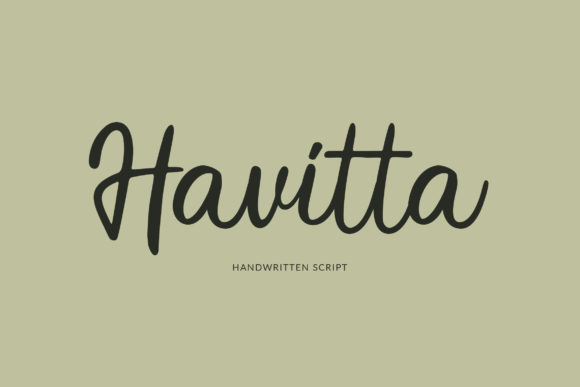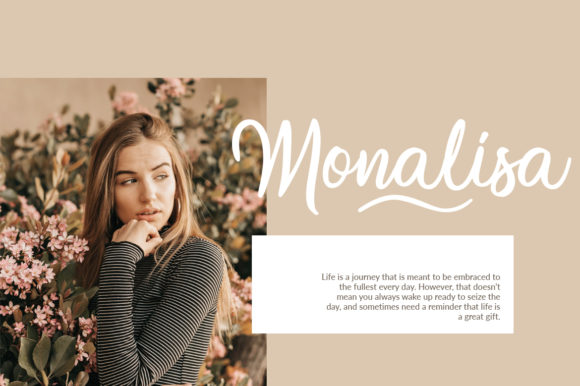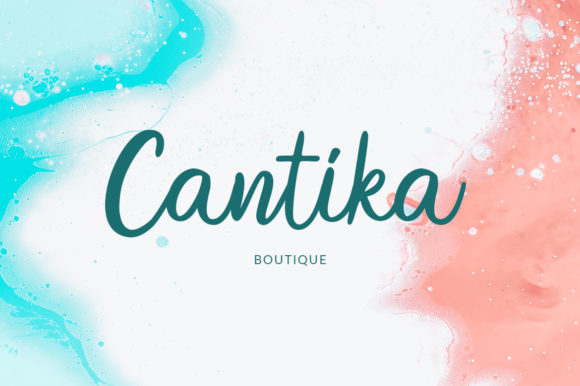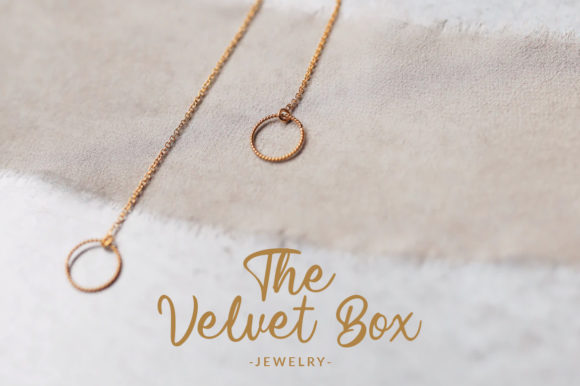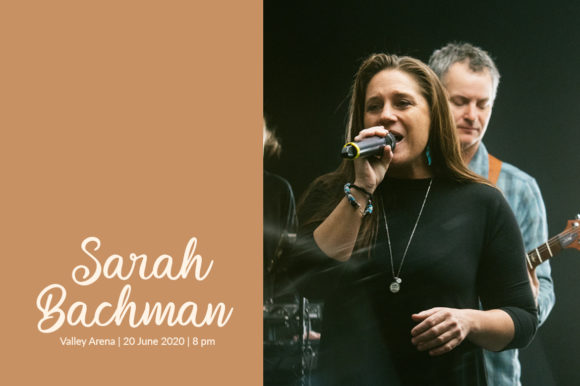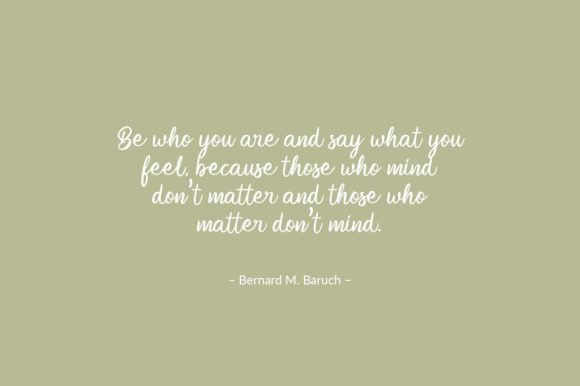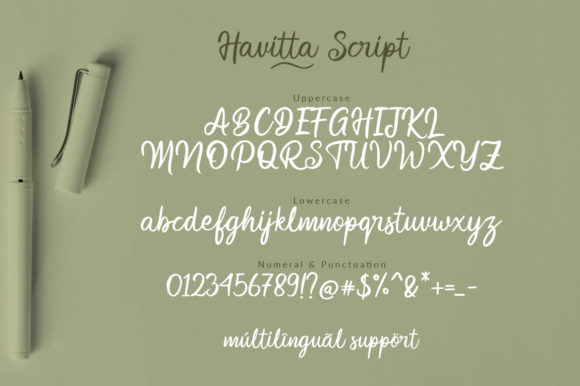
Havitta Font
About Havitta Font
Havitta is a sweet and classy handwritten font. Its well balanced arrangement of letters makes it adept to a wide variety of designs. Fall in love with its incredibly versatile style and use it to create spectacular designs!